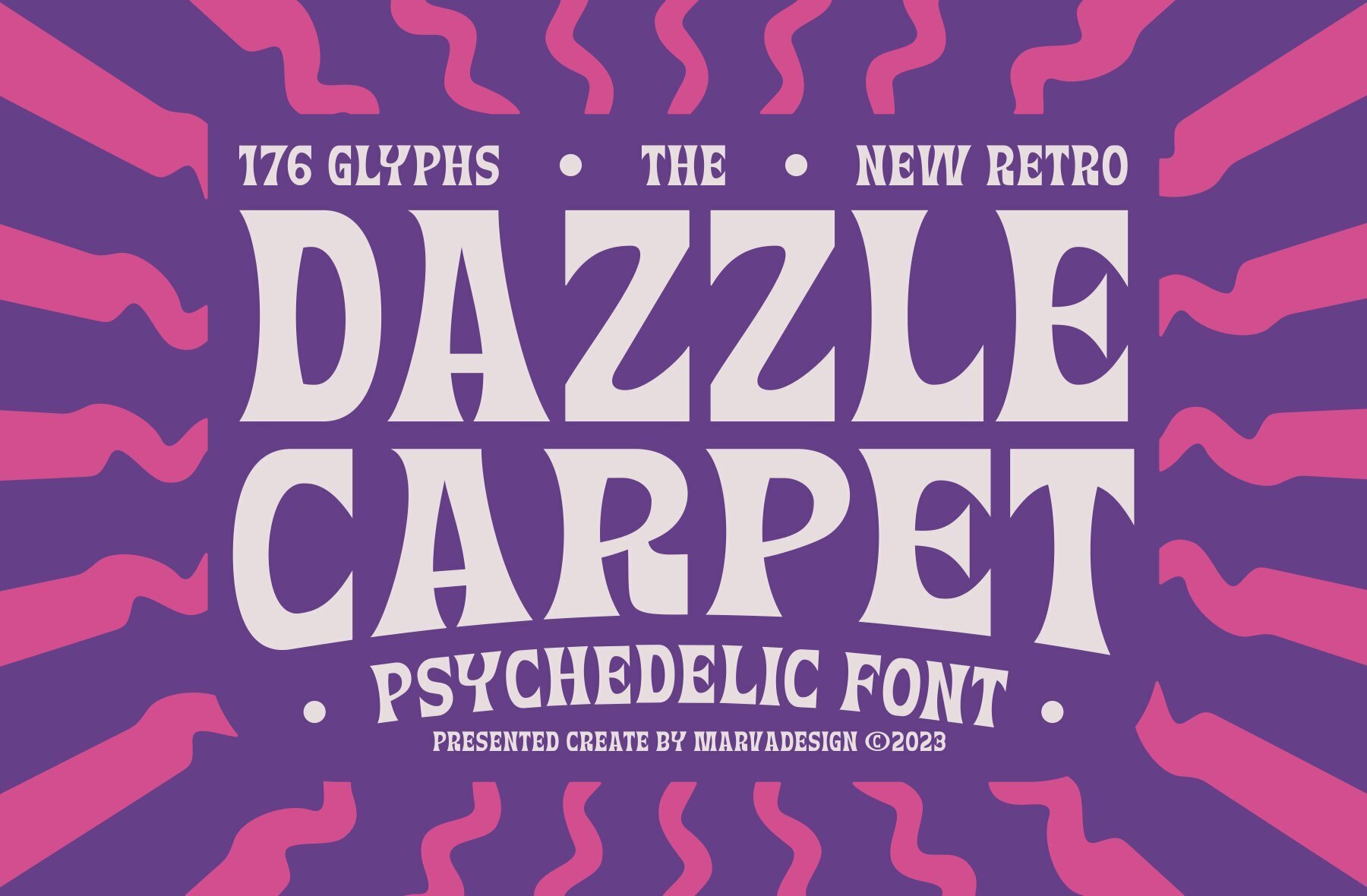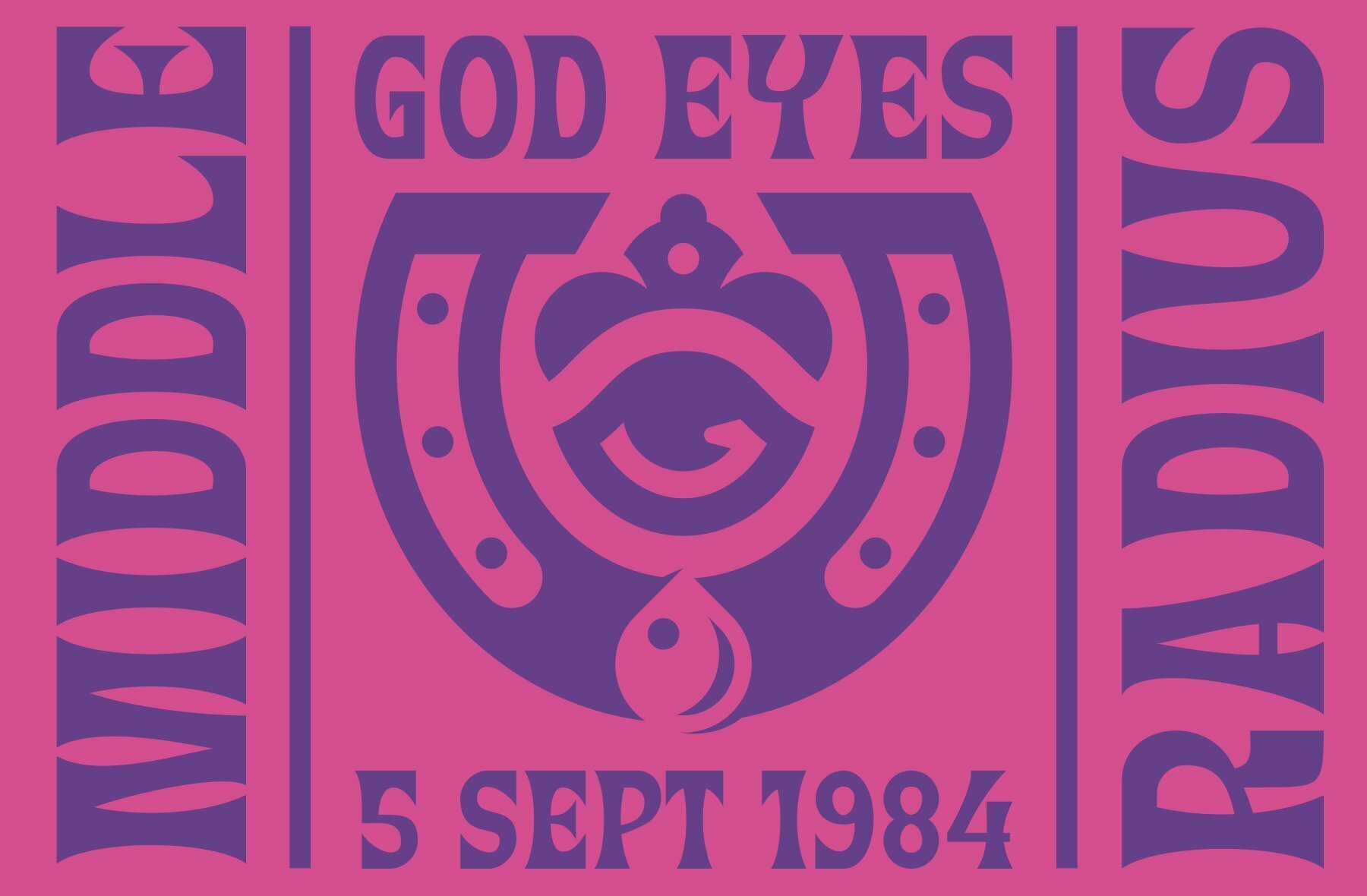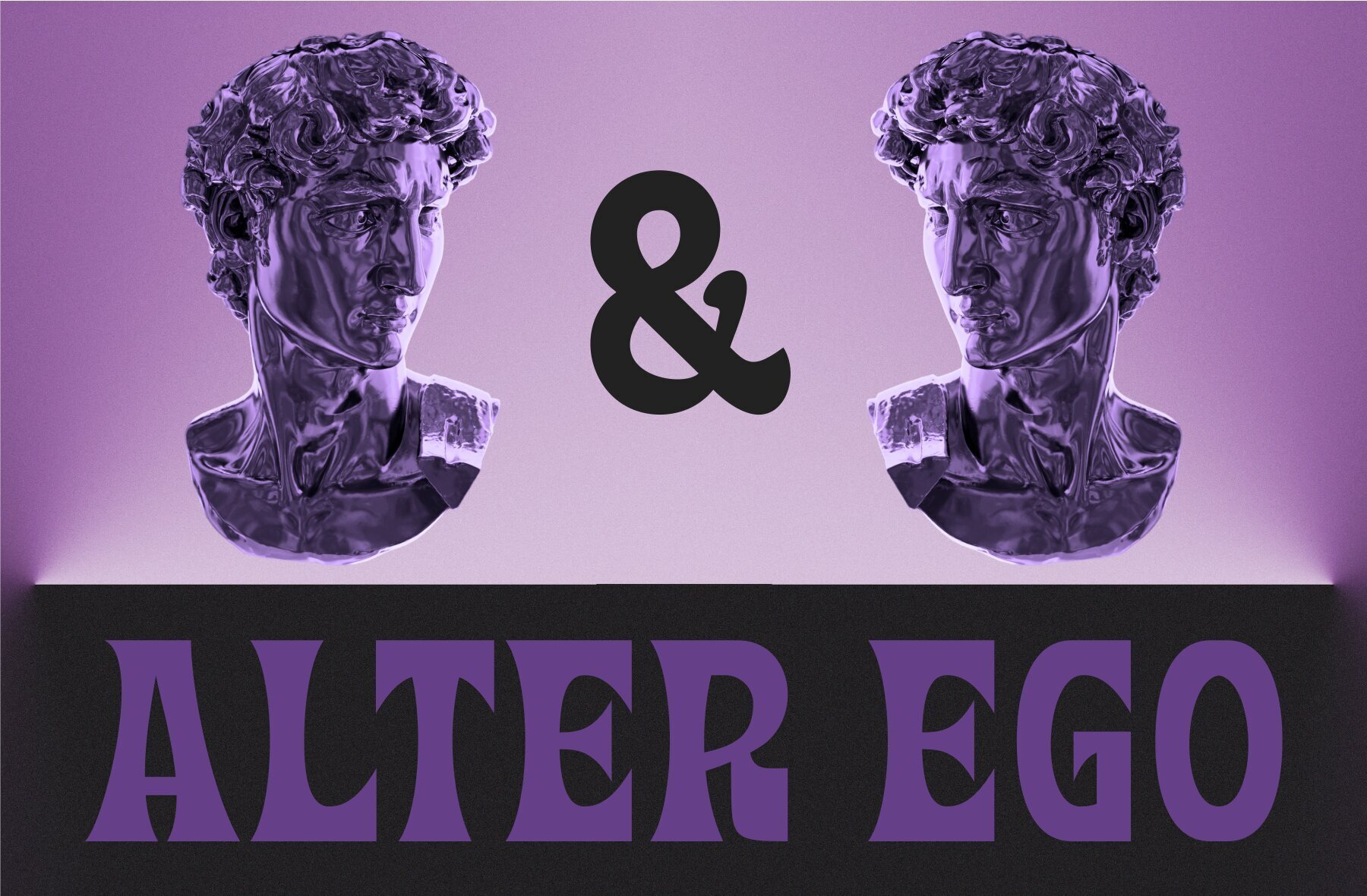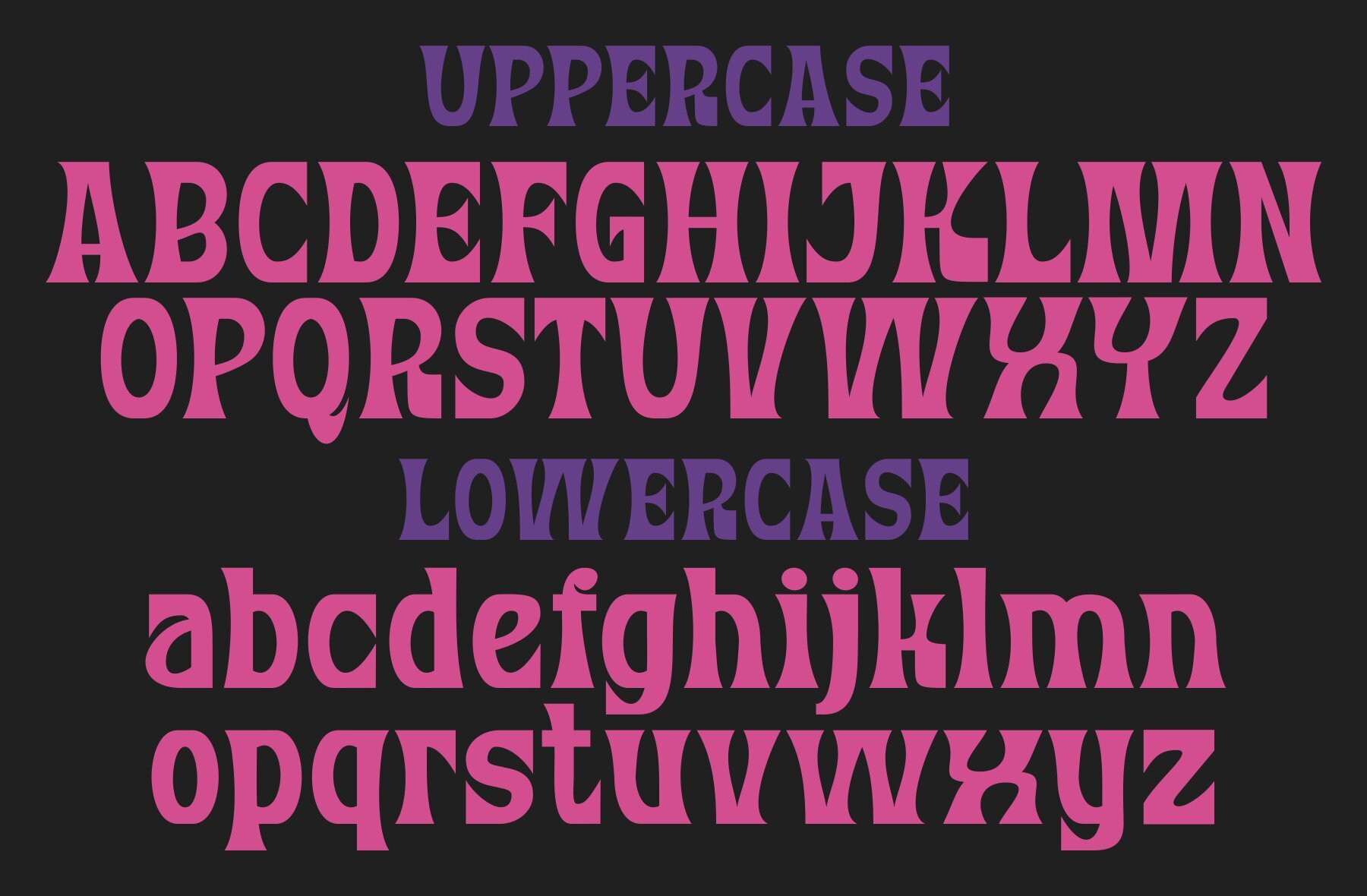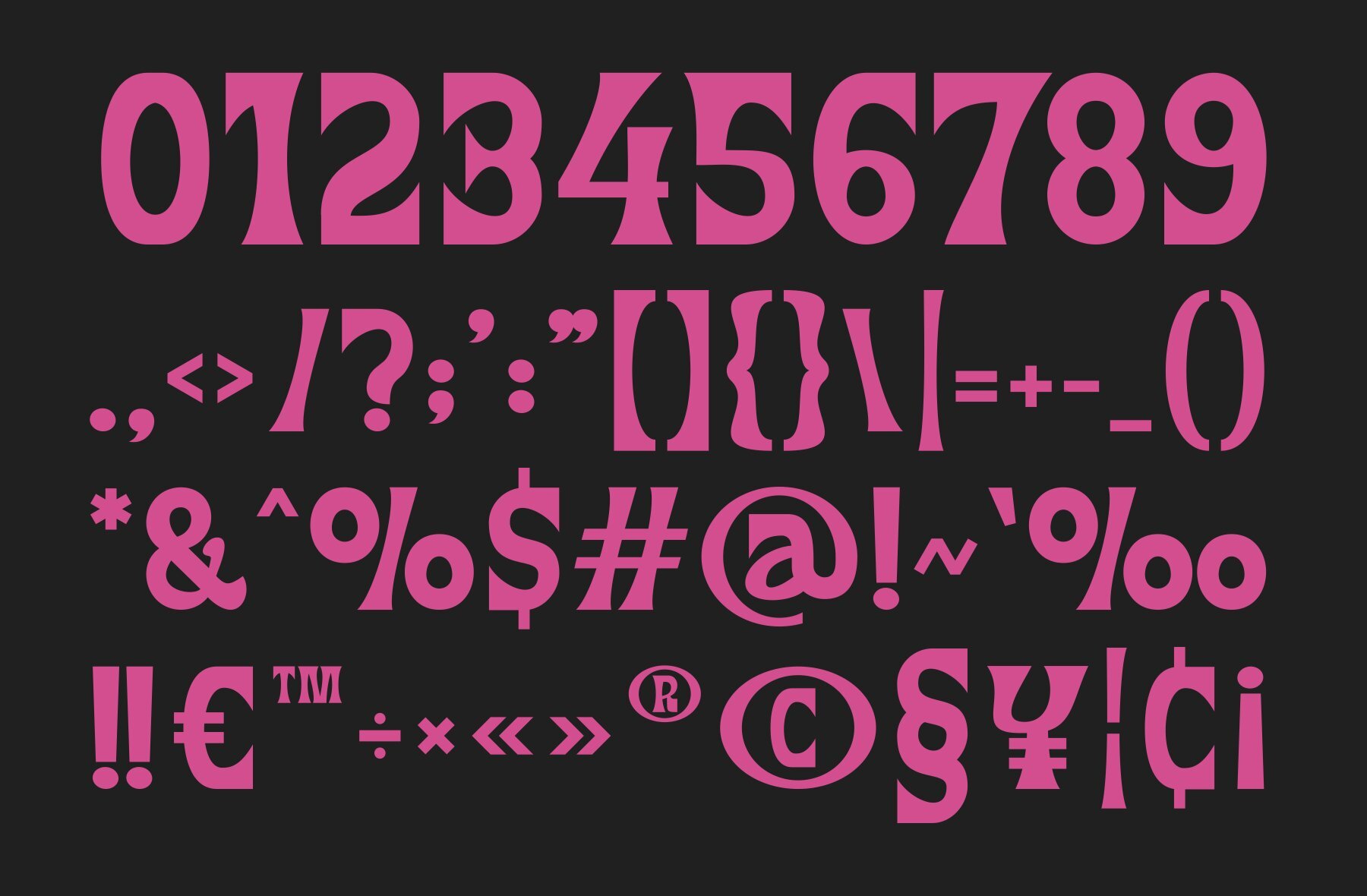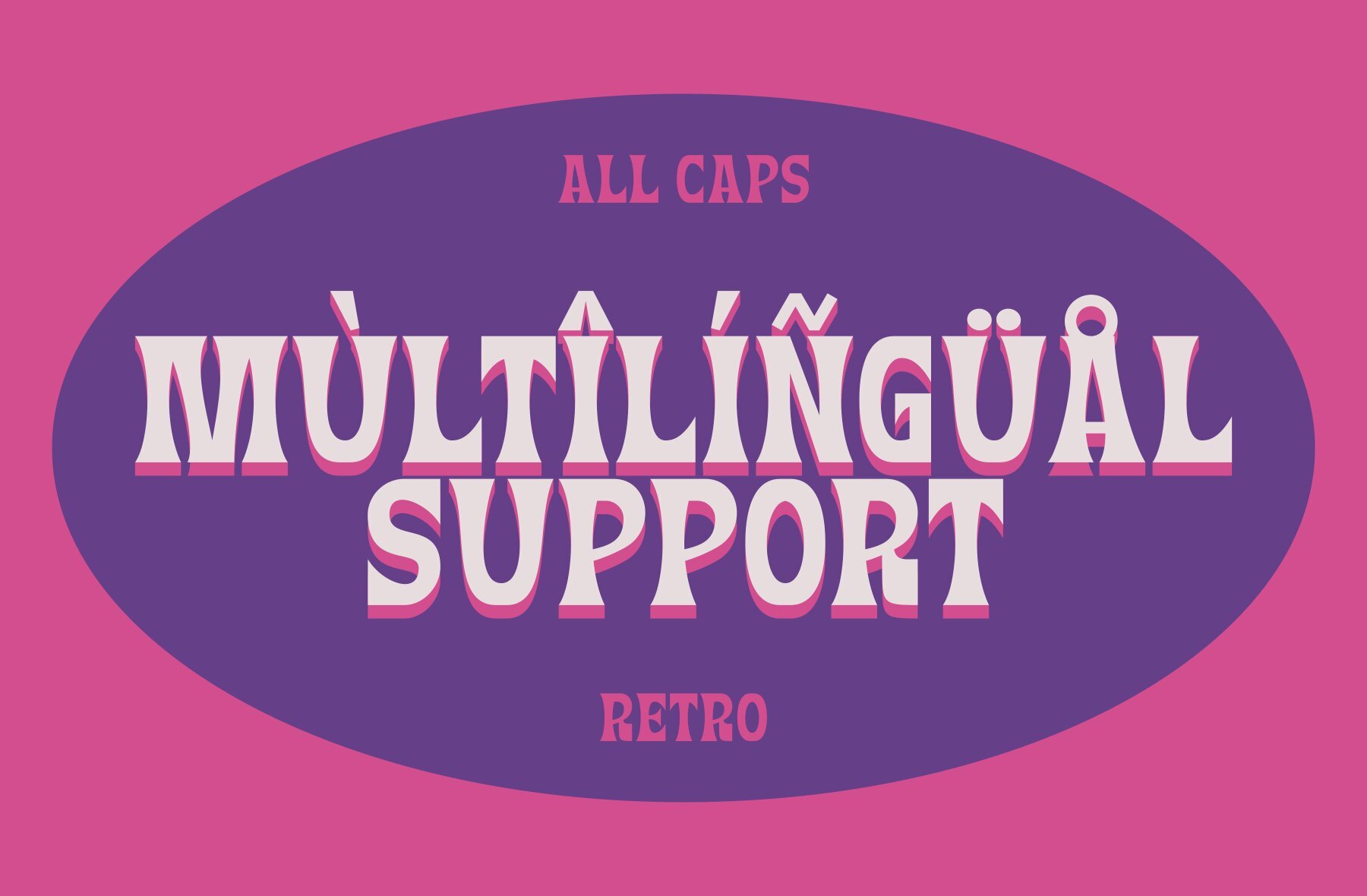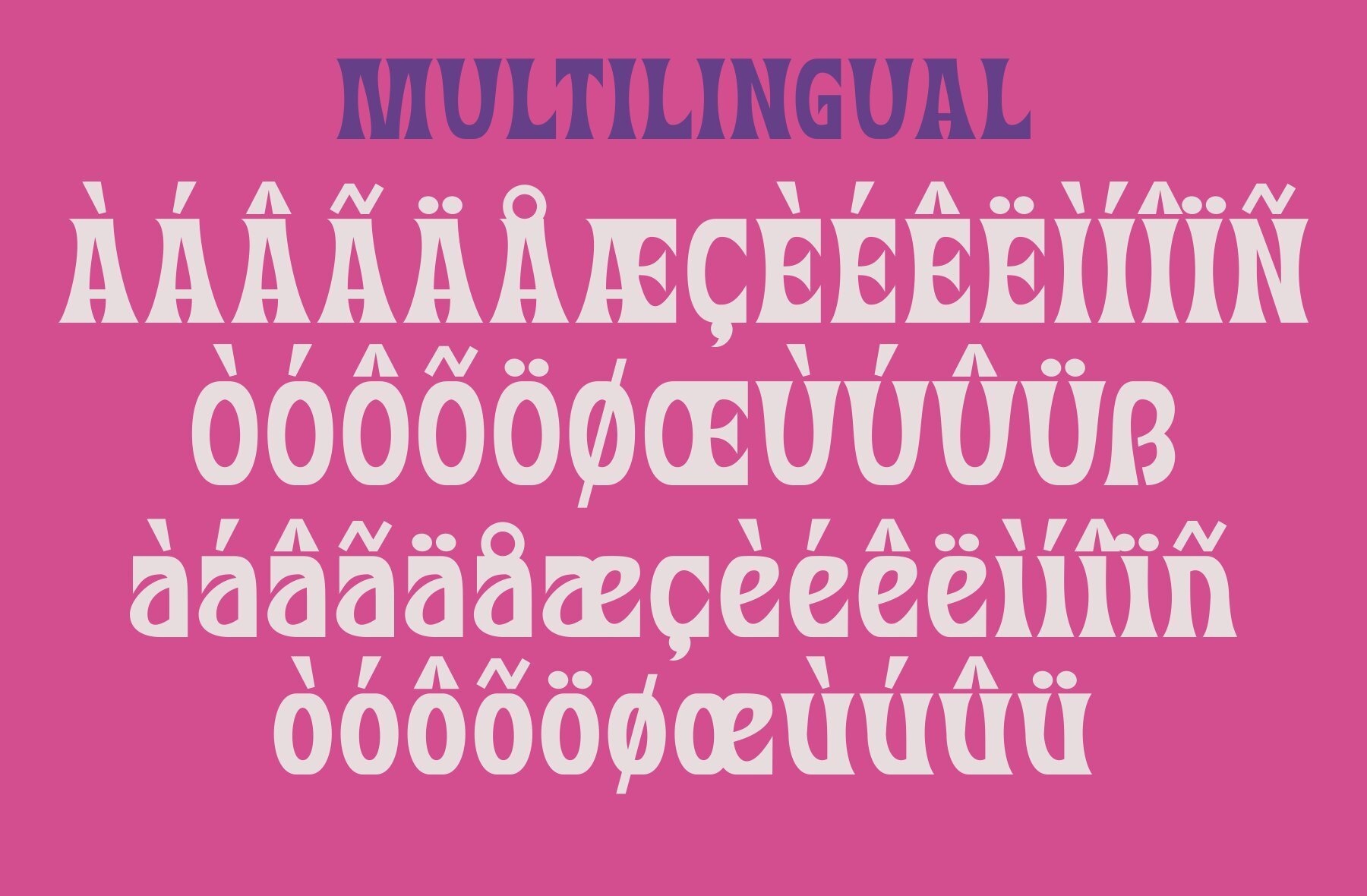
Dazzle Carpet Font
DAZZLE CARPET
Dazzle Carpet is a bold and authentic display font, perfect for adding a psychedelic touch to any project. Ideal for branding efforts like logos, template designs, and products, this font excels in a wide range of contexts.Dazzle Carpet: A Vibrant Psychedelic Display Font